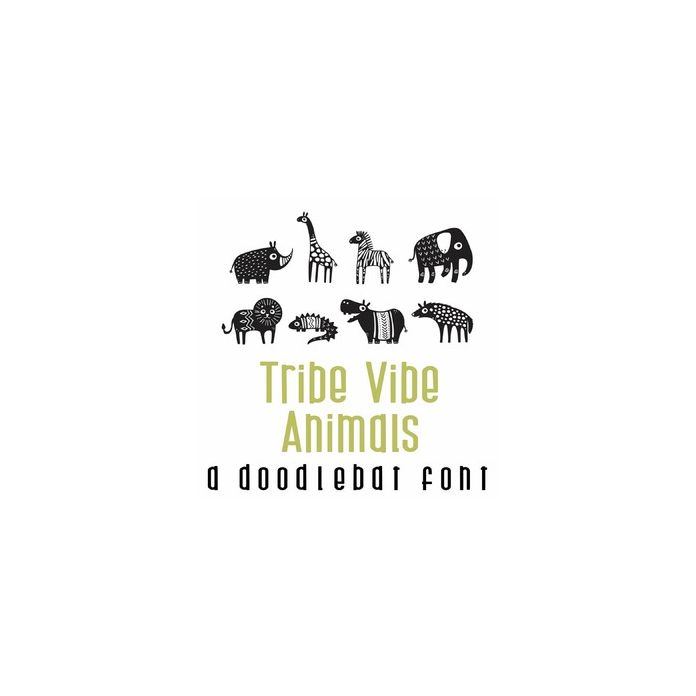
Tribe Vibe - Animals Doodlebat Font
This fun doodlebat font features 26 tribal themed animals. Perfect for decorations, gifts, decor, planner stickers, scrap book pages and more!